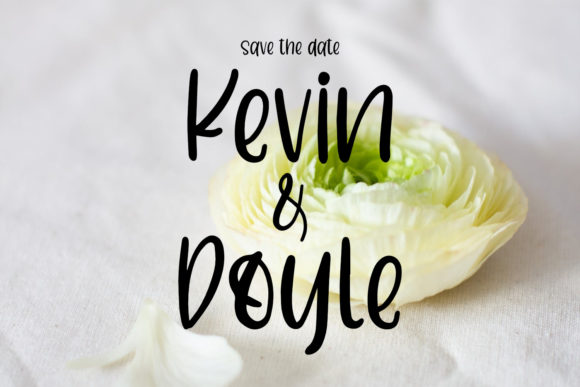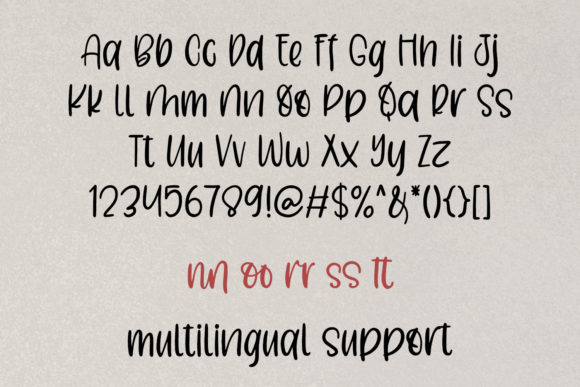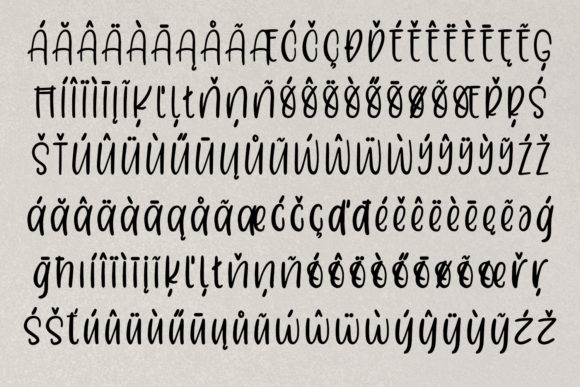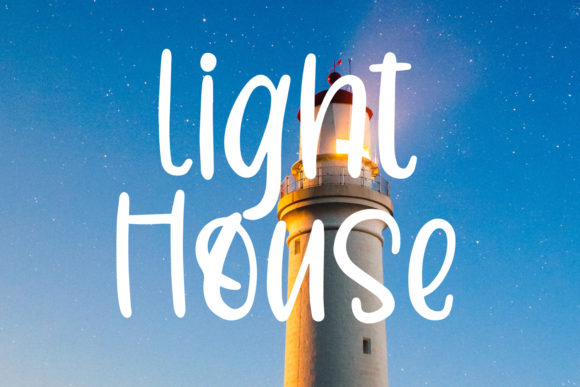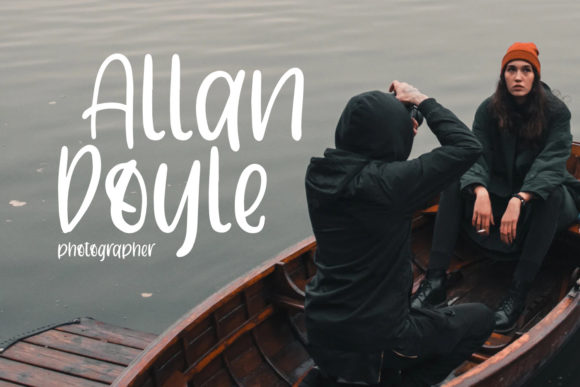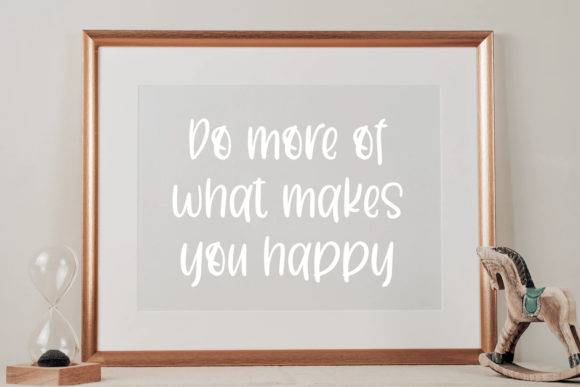
Groomed Font: Elevate Your Designs with a Cool, Friendly, and Neat Display Font
Are you tired of using the same old fonts in your designs? Look no further than Groomed Font, a cool, friendly, and neat display font that’s sure to take your creations to the next level. Whether you’re a designer, crafter, or simply someone who loves to dabble in creative projects, Groomed Font is an incredibly valuable asset to have in your font library.
What Makes Groomed Font So Special?
Groomed Font is more than just a pretty face – it’s a versatile and highly functional font that’s perfect for a wide range of design applications. Here are just a few of the things that make Groomed Font stand out:
- Cool and Friendly Vibe: Groomed Font has a unique and approachable personality that’s perfect for designs that need to be fun, youthful, and engaging.
- Neat and Clean Design: The font’s clean lines and carefully crafted letterforms make it easy to read and visually appealing.
- Highly Versatile: Groomed Font can be used for everything from headings and titles to logos, posters, and more.
How Groomed Font Can Elevate Your Designs
No matter what type of design you’re working on, Groomed Font has the potential to elevate your creation and make it stand out from the crowd. Here are just a few examples of how Groomed Font can be used to take your designs to the next level:
- Headings and Titles: Use Groomed Font to add a touch of personality and flair to your headings and titles.
- Logos and Branding: Groomed Font’s unique and memorable design makes it perfect for logos and branding projects.
- Posters and Flyers: Add some visual interest to your posters and flyers with Groomed Font’s bold and eye-catching design.
- Digital Media: Groomed Font is also perfect for digital media, including social media graphics, email headers, and more.
Why Designers and Crafters Love Groomed Font
So why do designers and crafters love Groomed Font so much? Here are just a few reasons:
- Easy to Read: Groomed Font is highly legible, even at small sizes.
- Highly Customizable: The font’s clean design makes it easy to customize and modify to suit your needs.
- Unique and Memorable: Groomed Font’s unique design makes it perfect for designs that need to stand out from the crowd.
Getting Started with Groomed Font
In conclusion, Groomed Font is a cool, friendly, and neat display font that’s perfect for designers and crafters who want to take their creations to the next level. With its highly versatile design, ease of use, and unique personality, Groomed Font is an incredibly valuable asset to have in your font library.